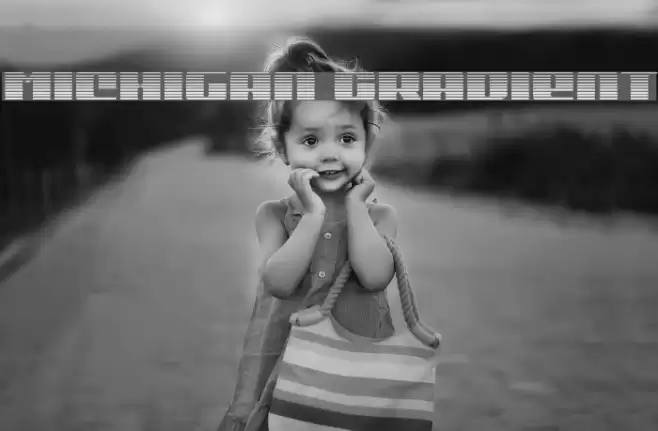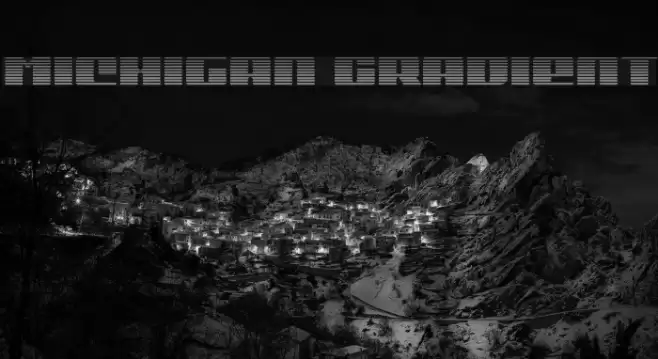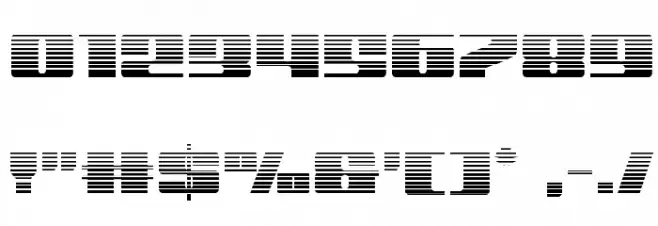
Michigan Gradient Font
Michigan Gradient Description
This font features a unique gradient effect within each character, creating a dynamic and visually striking appearance. The letters are constructed with horizontal lines that vary in thickness, giving a sense of movement and depth. The uppercase and lowercase letters maintain a consistent style, with the gradient lines providing a cohesive look across the alphabet. The numbers and special characters follow the same design principle, ensuring uniformity throughout. This font is ideal for projects that require a modern and edgy aesthetic, making it suitable for digital media, posters, and branding materials.
A modern font with gradient lines creating a dynamic and edgy look from Uncategorized fonts.
- Proposed Projects: Ideal for digital media, posters, branding, and any project needing a modern, dynamic aesthetic.